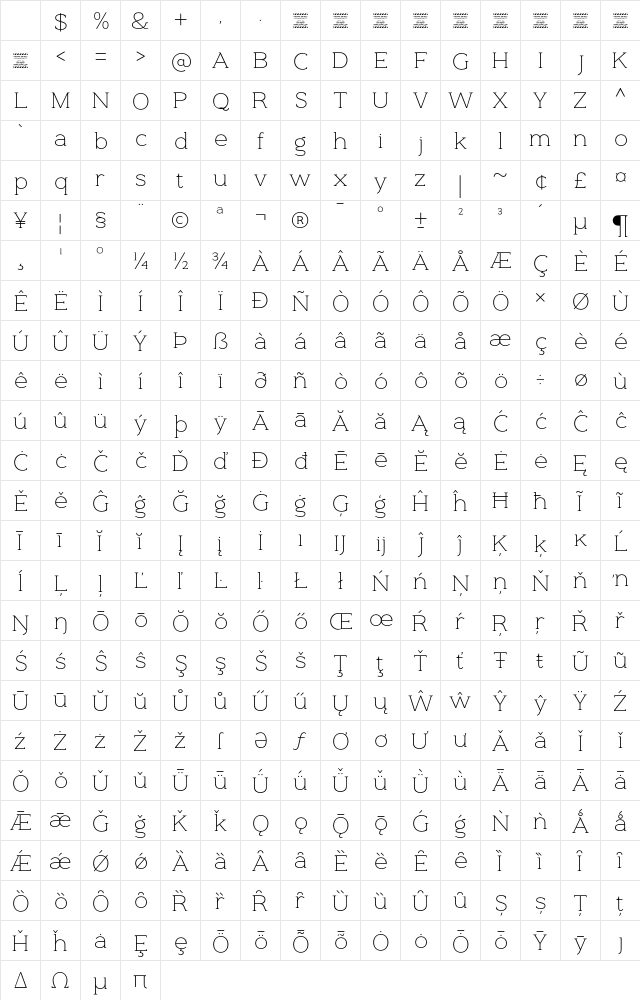
Counte DEMO Thin is a composed and adaptable typeface that performs quietly and consistently across a wide range of design contexts. Its slender proportions lend an understated elegance to any composition.